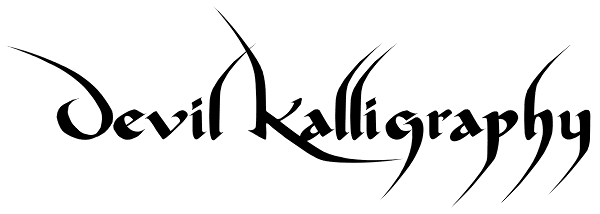
Devil Kalligraphy
Devil Kalligraphy was performed by Argentina Lián Types in 2007. The shapes of each caracter have a strong personality. It was based on antique writings. Devil Kalligraphy was inspirated in calligraphy styles. Gothic and Uncial themselves. A mix...